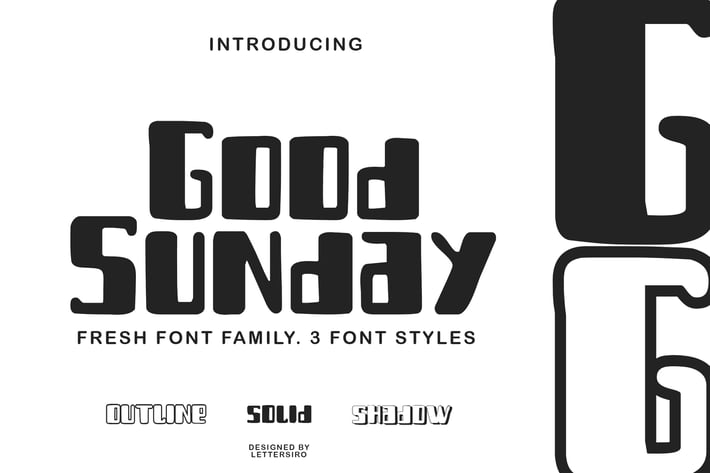
Good Sunday Layered Font
Good Sunday is a layered font, a fancy font, a fun font that very very useful for many your design projects. You can use it for logo, poster, menu, clothing, education project, and others.